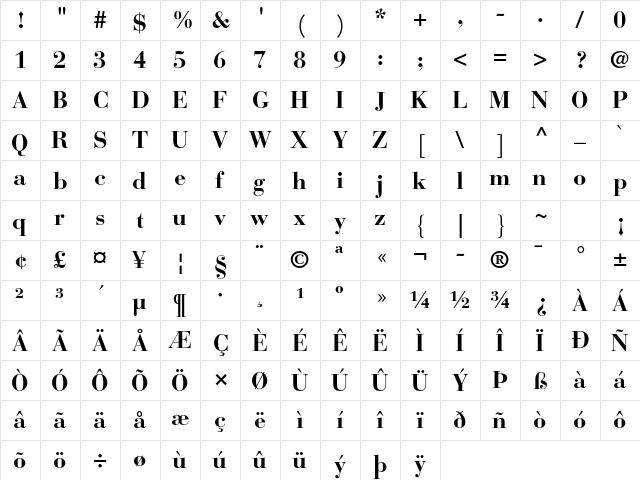
Bauer Bodoni Std 1 Bold Font Preview
Bauer Bodoni Std 1 Bold
Bauer Bodoni Std 1 Bold Font Details
| Designer | Heinrich Jost, Louis Hڬl |
Design Context for Bauer Bodoni Std 1 Typeface
Bauer Bodoni Std 1 takes a measured approach to typography — its balanced proportions and neutral character make it a reliable workhorse for both digital and print work. Its bold stroke weight gives it real presence on the page.